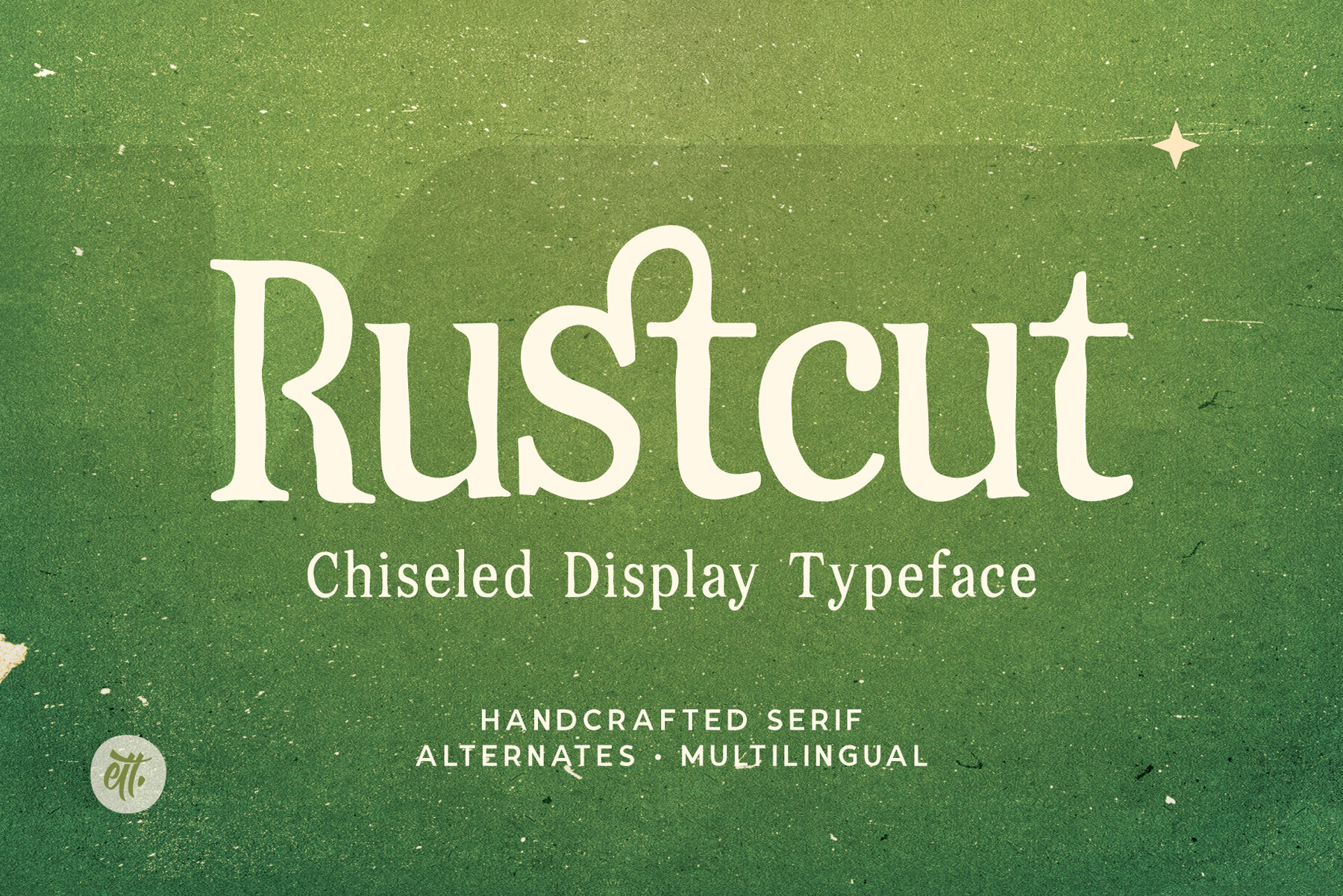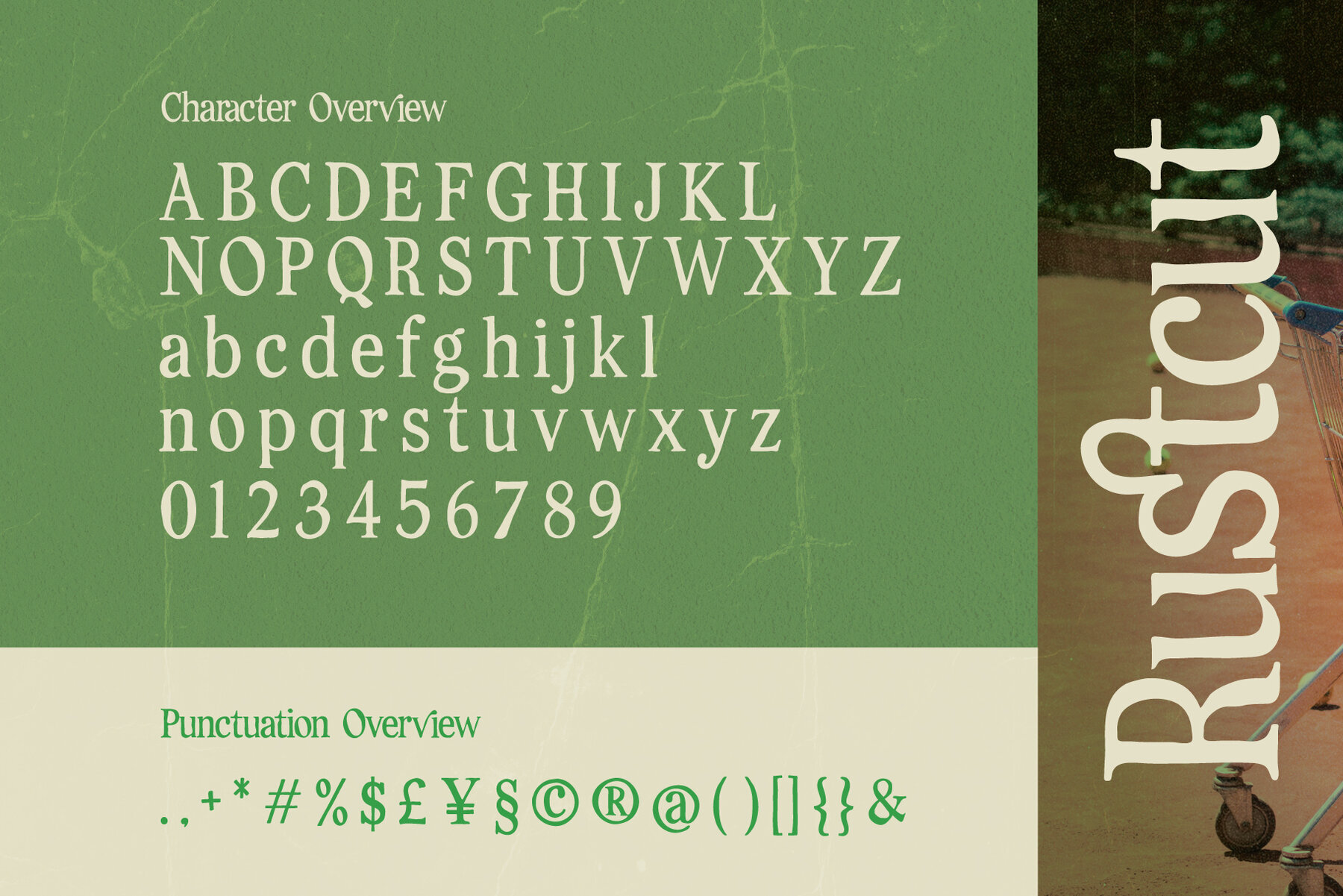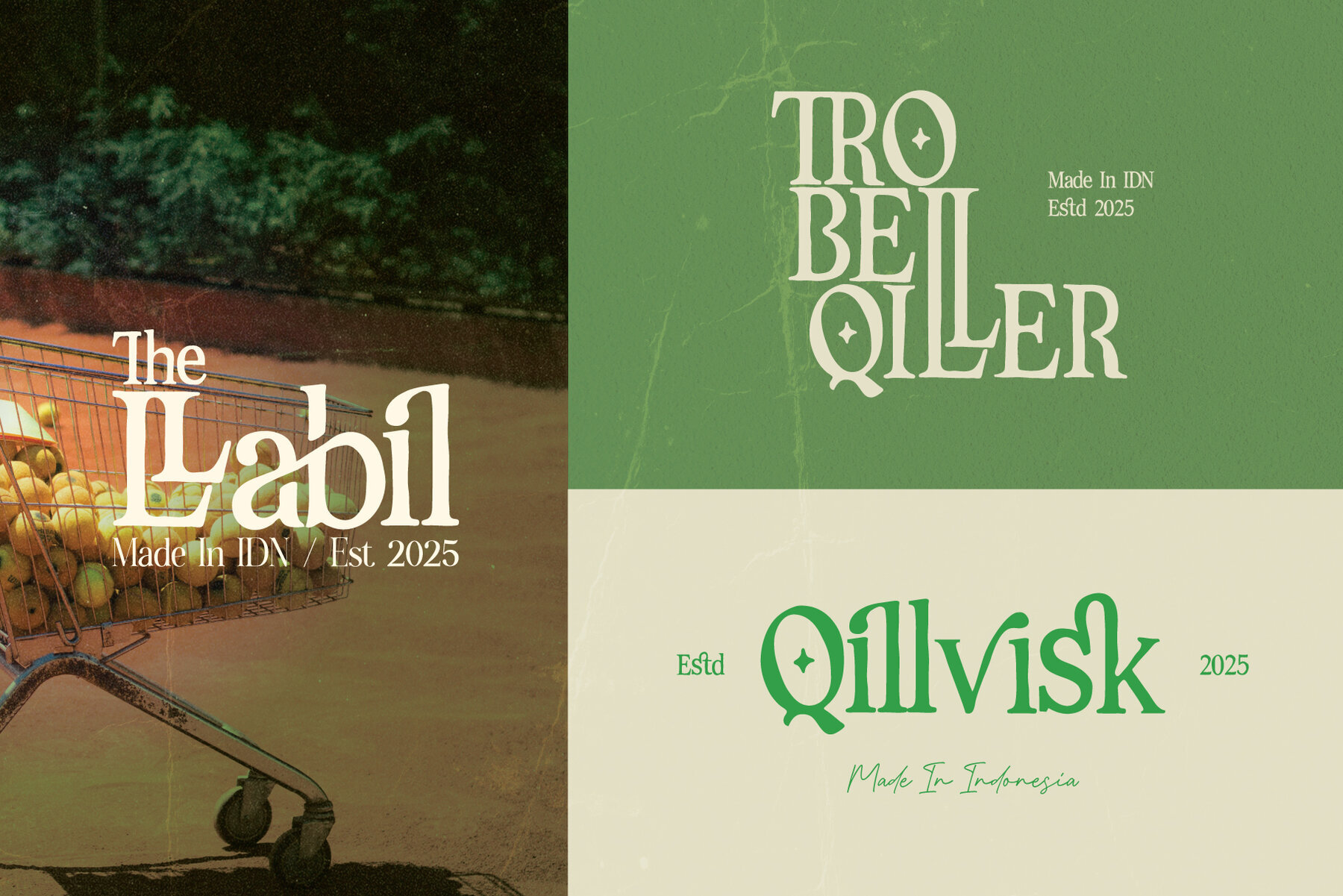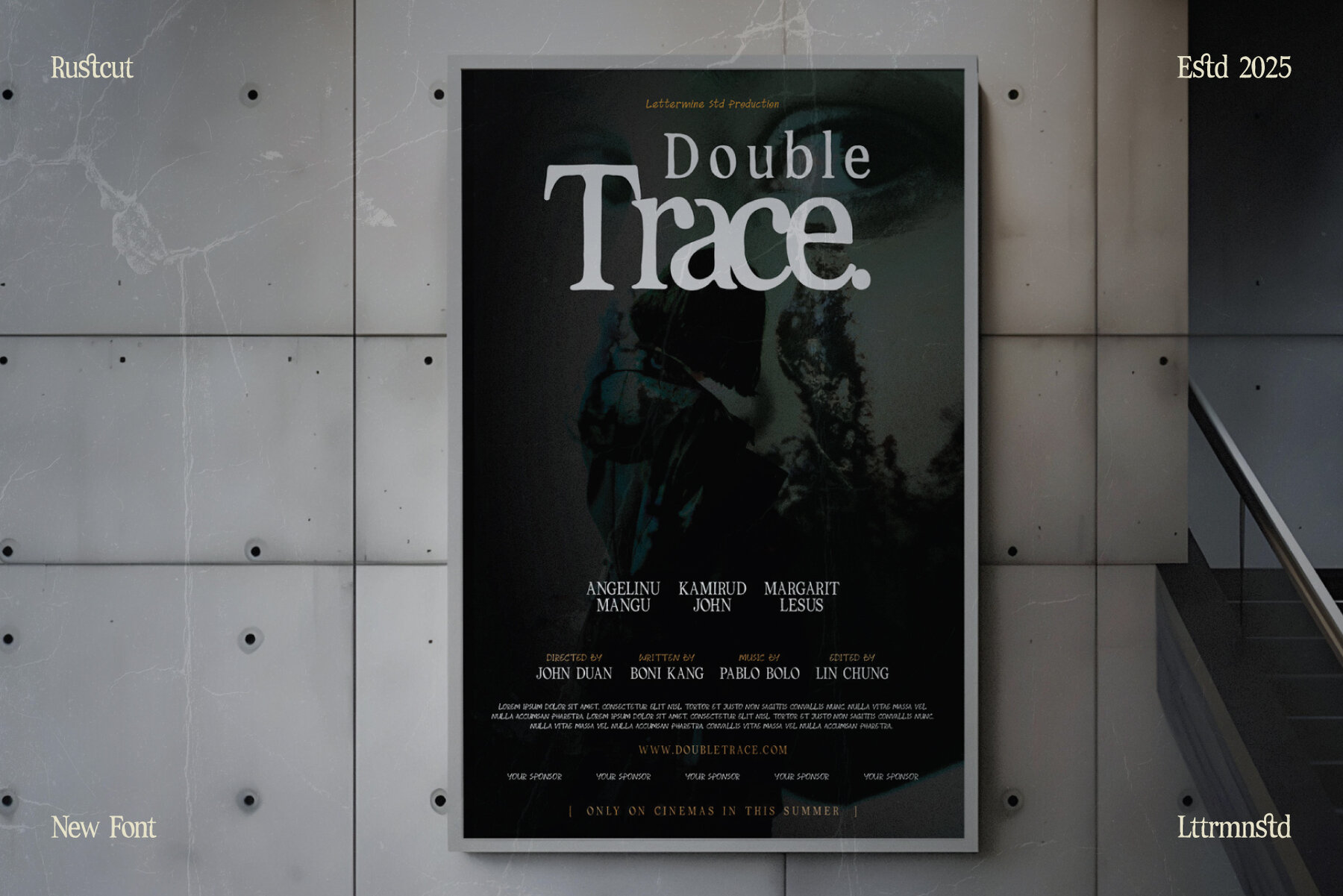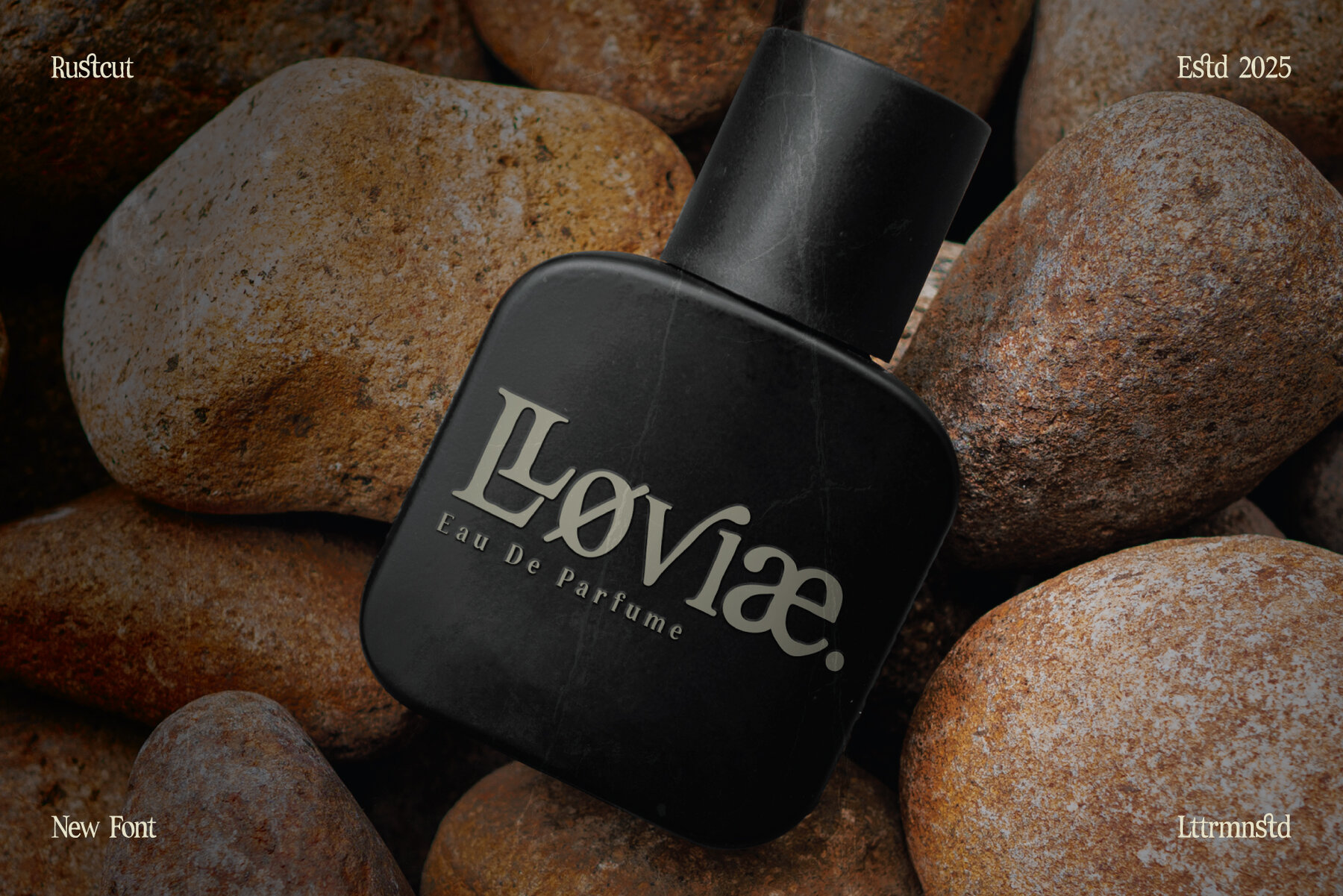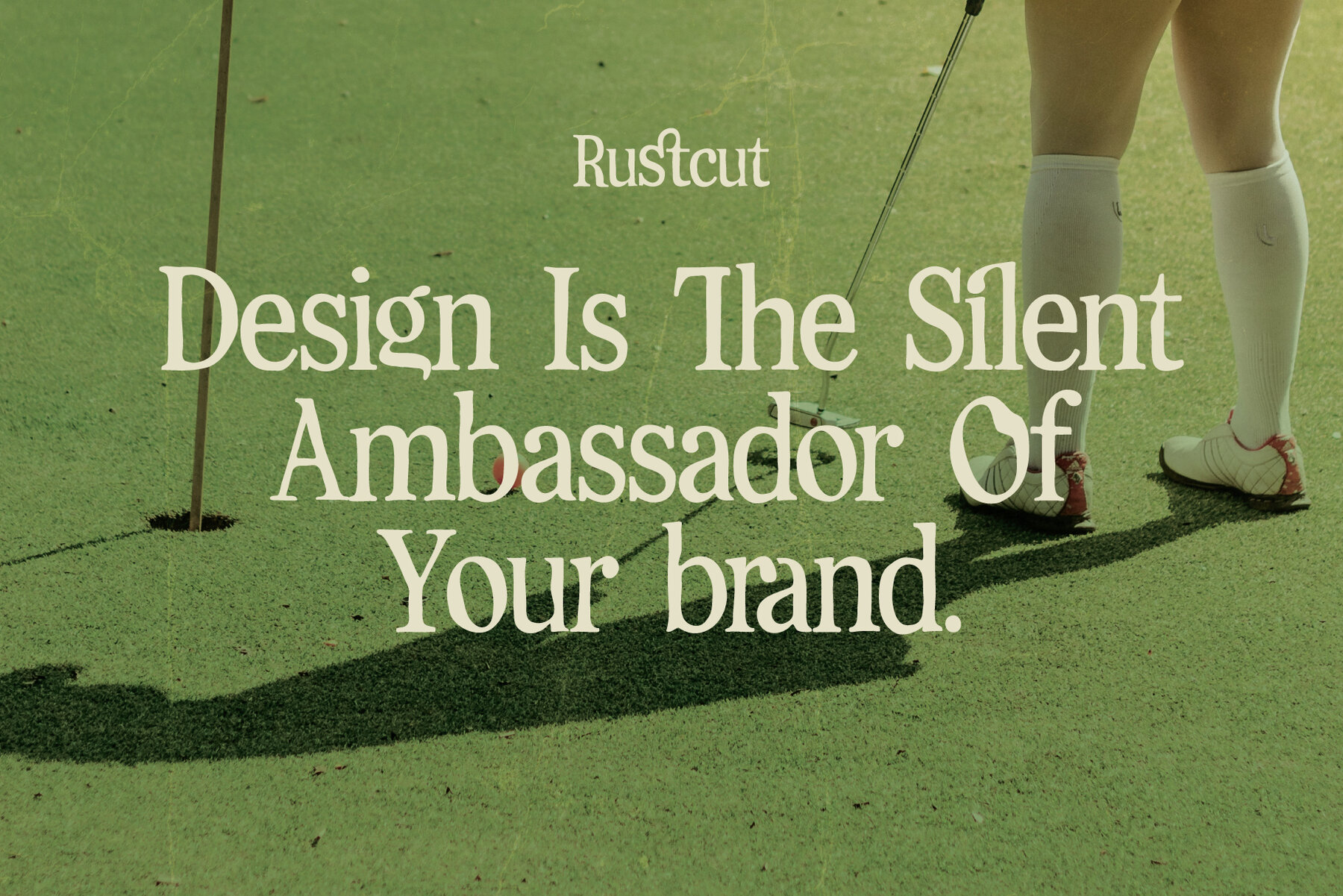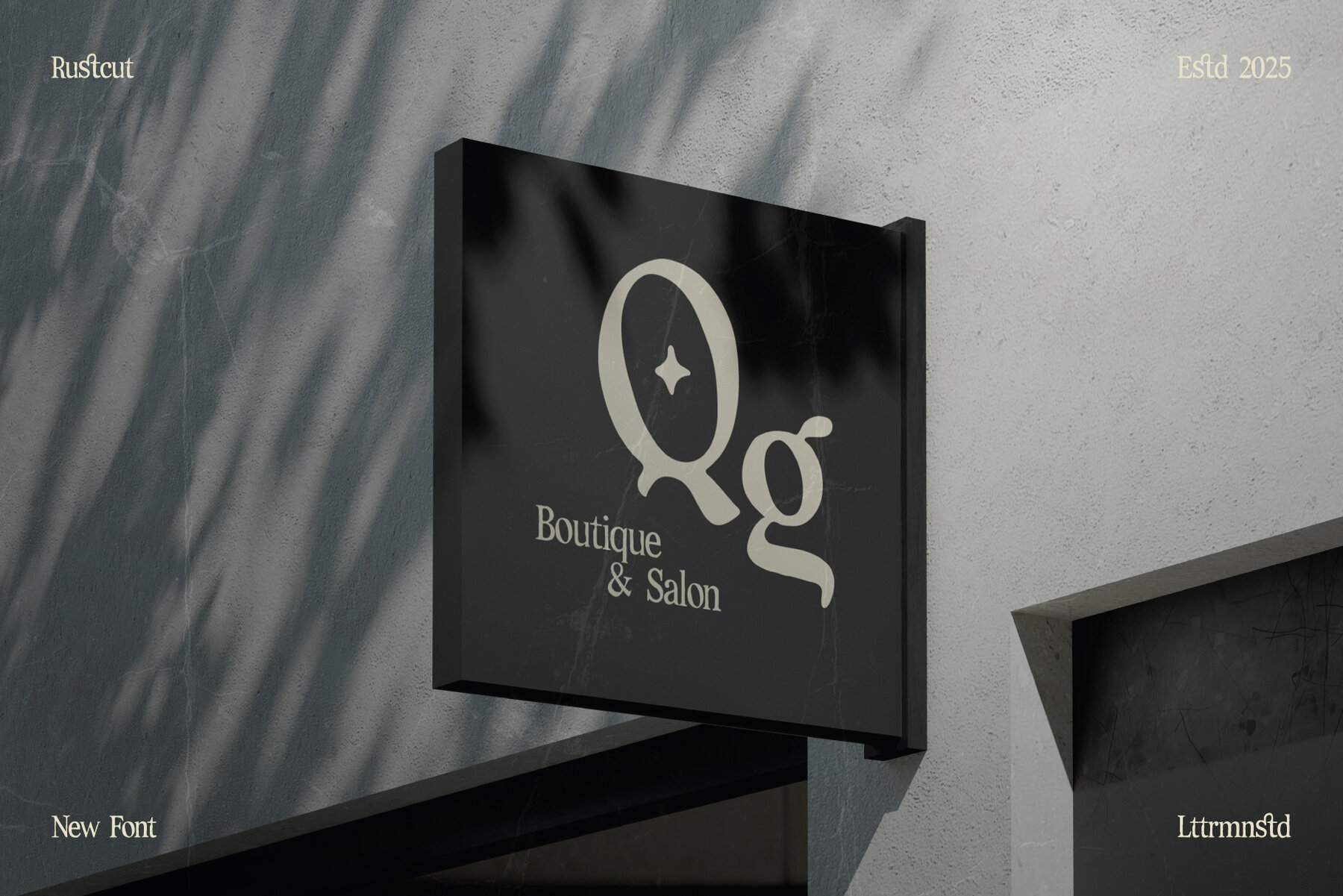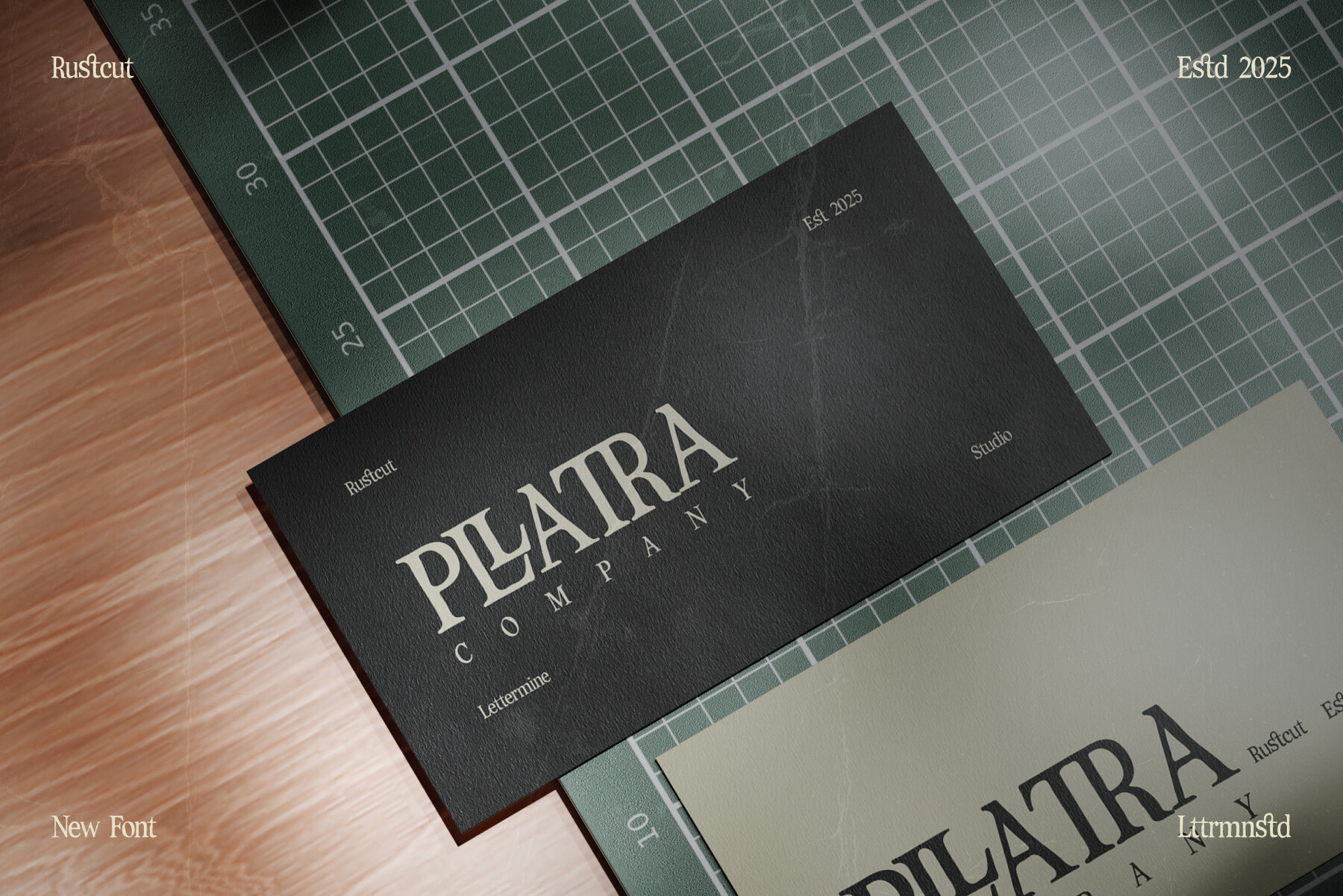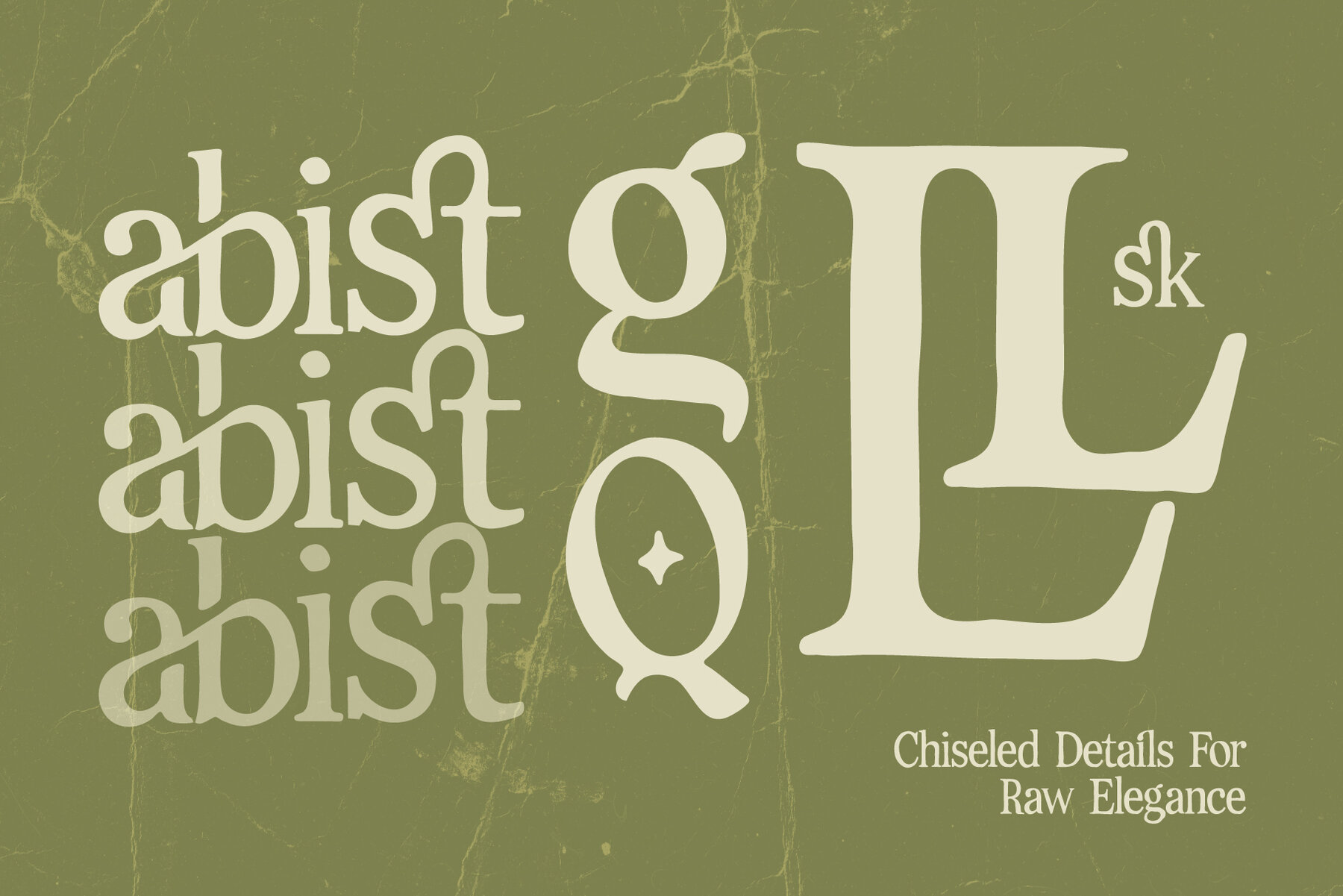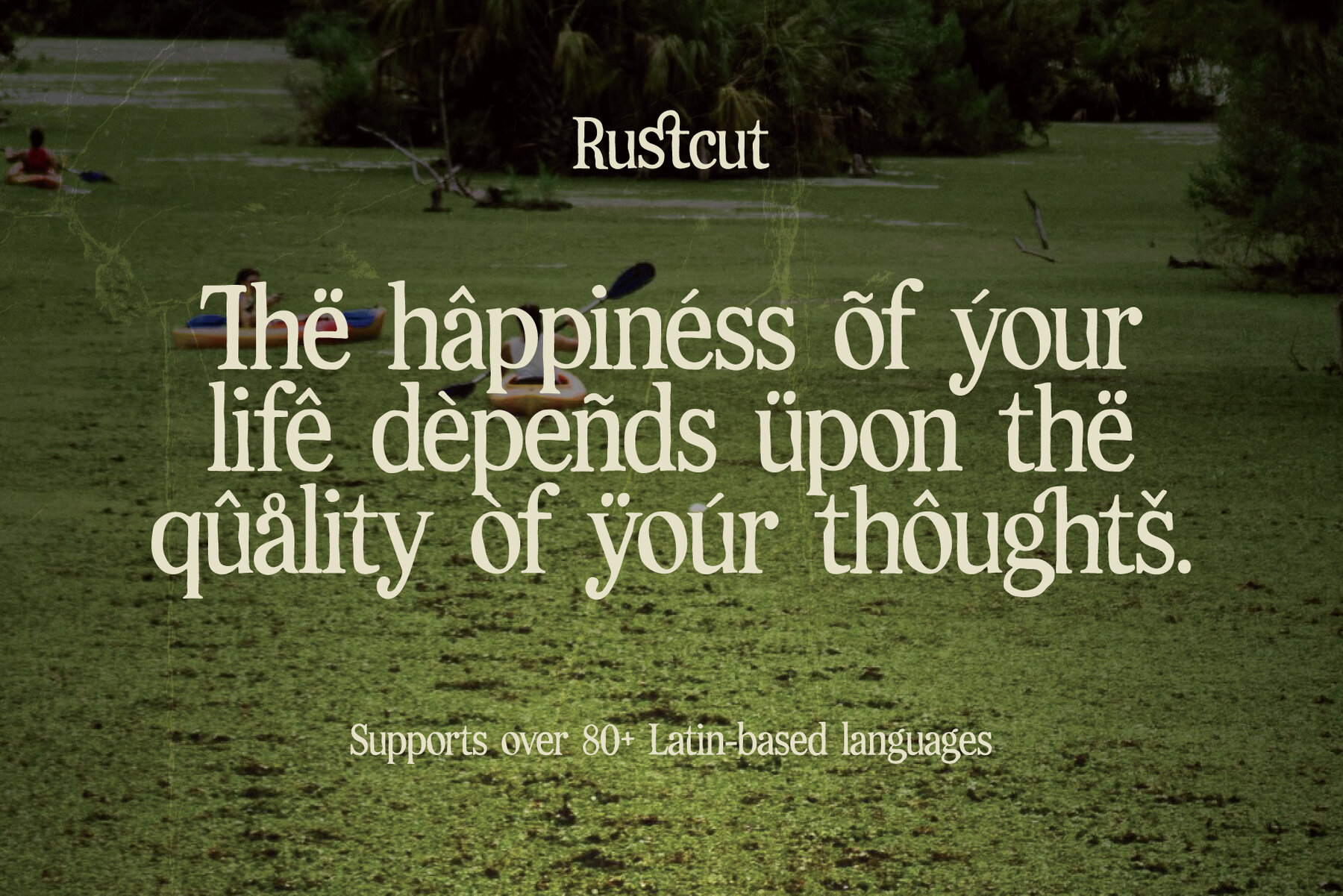
Rustcut Font
Rustcut
Discover the refined elegance of Rustcut, a meticulously crafted display serif font designed by Lettermine Studio. Its chiseled edges and organic form infuse a touch of rustic sophistication wherever it's used. Ideal for elevating editorial layouts, boutique branding, and product packaging, Rustcut seamlessly blends the allure of classic serif fonts with a welcoming, human touch. This font is perfect for magazine titles, vintage-inspired logos, artisan labels, and gig posters, making a statement with its distinctive personality.Rustcut: Chiseled Display Serif Font